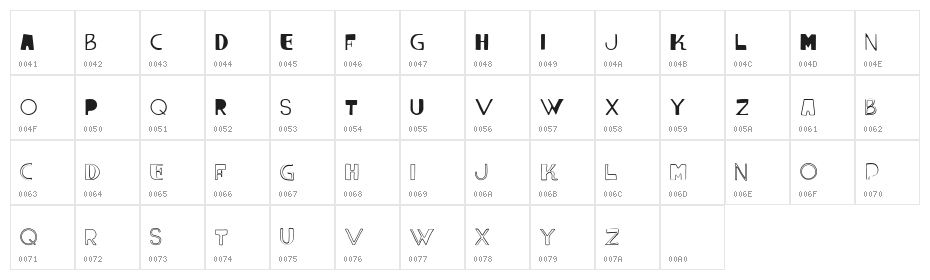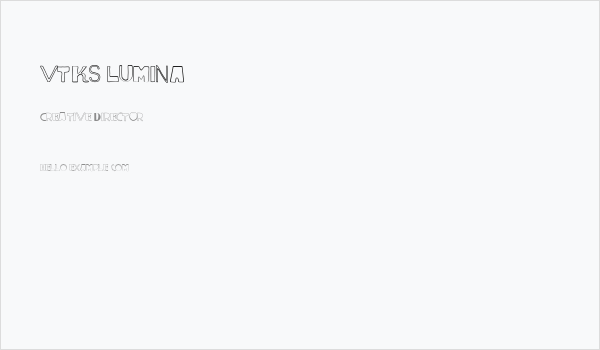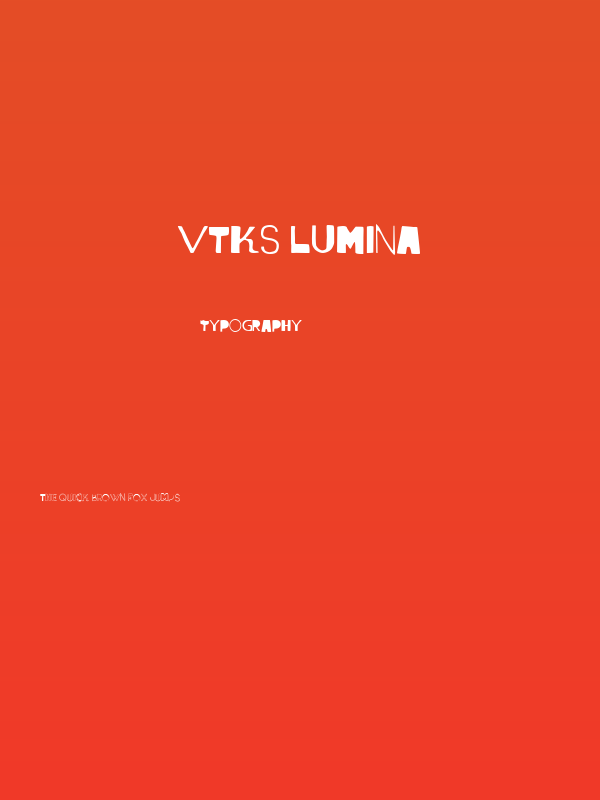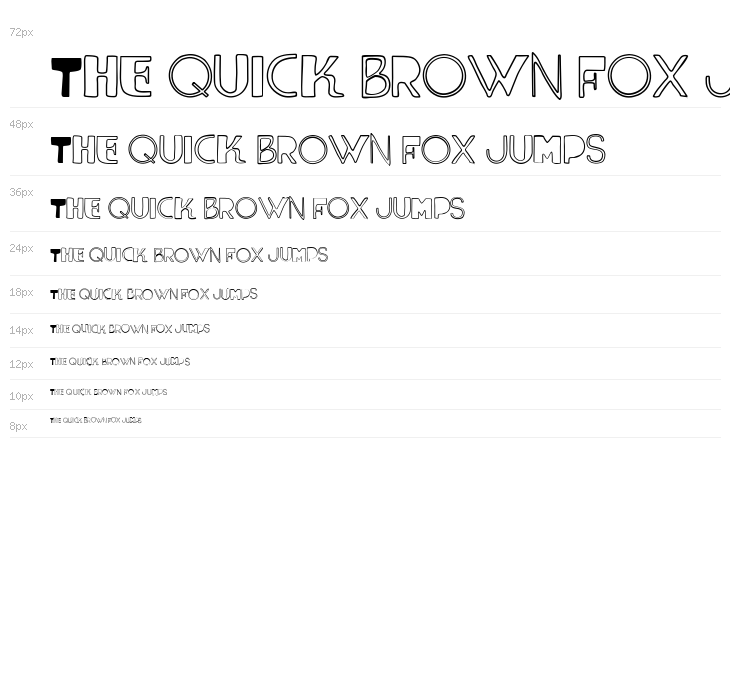
vtks lumina Font
vtks lumina Description
This font features a bold and artistic design with a unique blend of solid and outlined characters. The uppercase letters are characterized by thick, bold strokes, while some characters incorporate a hollow, outlined style, adding a dynamic and creative flair. The font's design is modern and eye-catching, making it suitable for projects that require a strong visual impact. The characters are evenly spaced, ensuring readability while maintaining an artistic edge. Its distinctive style makes it ideal for creative and decorative purposes.
| Proposed Projects | Ideal for posters, logos, album covers, and any design project that requires a bold, artistic touch. |